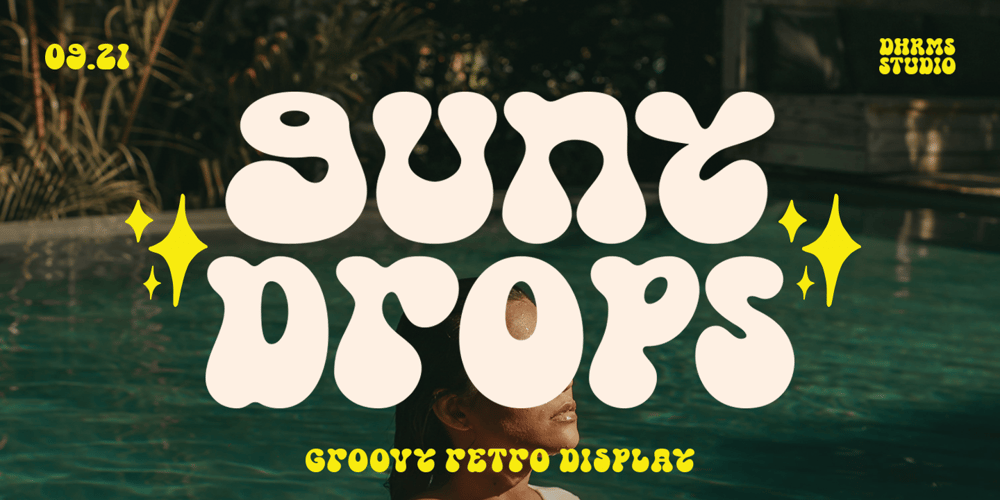
Gunydrops Font Family was designed by Ahmad Jamaludin and published by Ahmad Jamaludin. Gunydrops contains 1 styles and family package options. Presenting for you, Gunydrops!Gunydrops – it’s retro, bold, and playful, really ties together your piece to give it that retro feel. Perfect for make any project like header, quote, layout magazine and other. Even better if you use it on 60s and 70s design projectEmbracing the psychedelia era combine with groovy style, it came with vector extras and open type features such as stylistic alternatesWhat’s you get? Extras AI and EPS Unique letterforms Works on PC & Mac Simple Installations Accessible in Adobe Illustrator, Adobe Photoshop, Microsoft Word even work on Canva! PUA Encoded Characters Fully accessible without additional design software. Come and say hello over on Instagram! https://www.instagram.com/dharmas.studio/Dharmas Studio